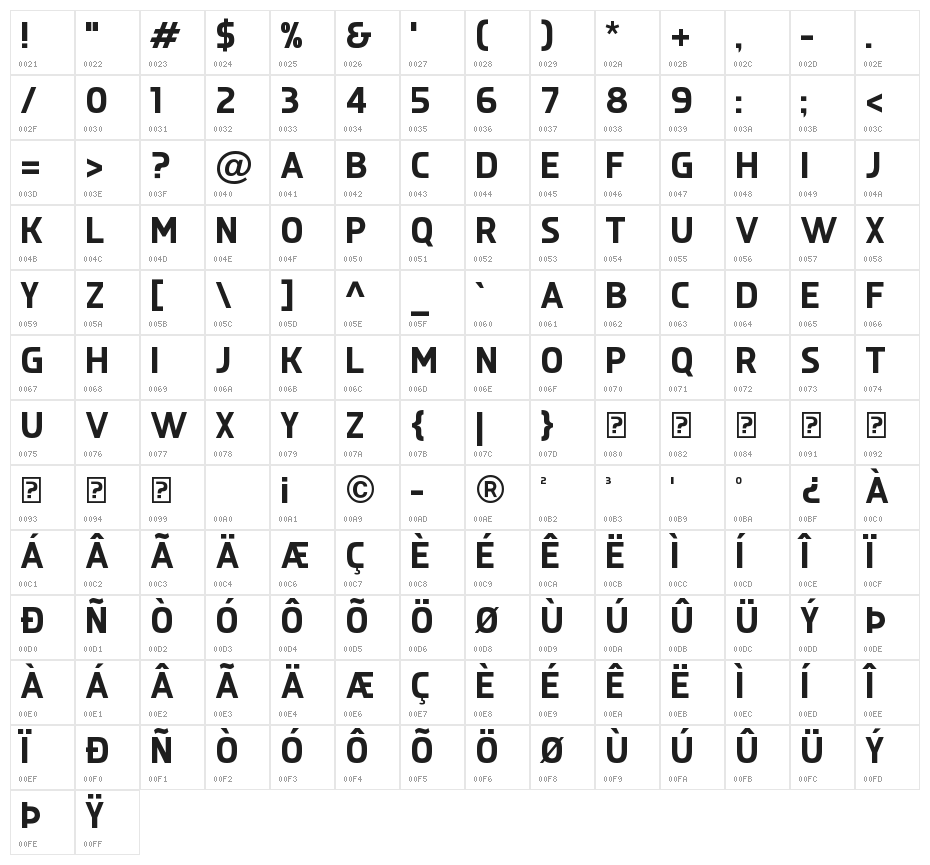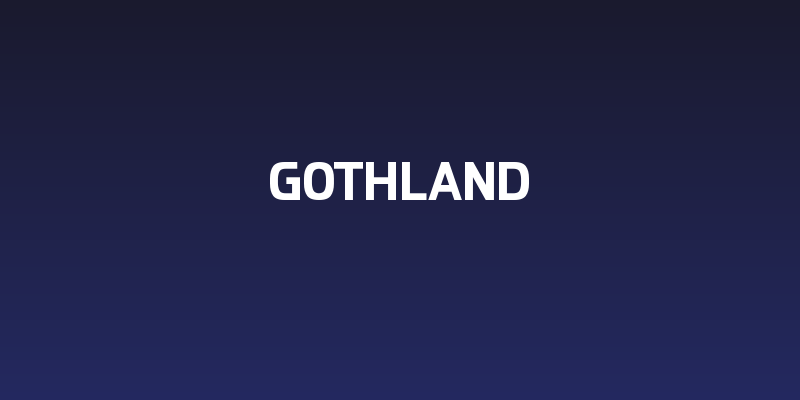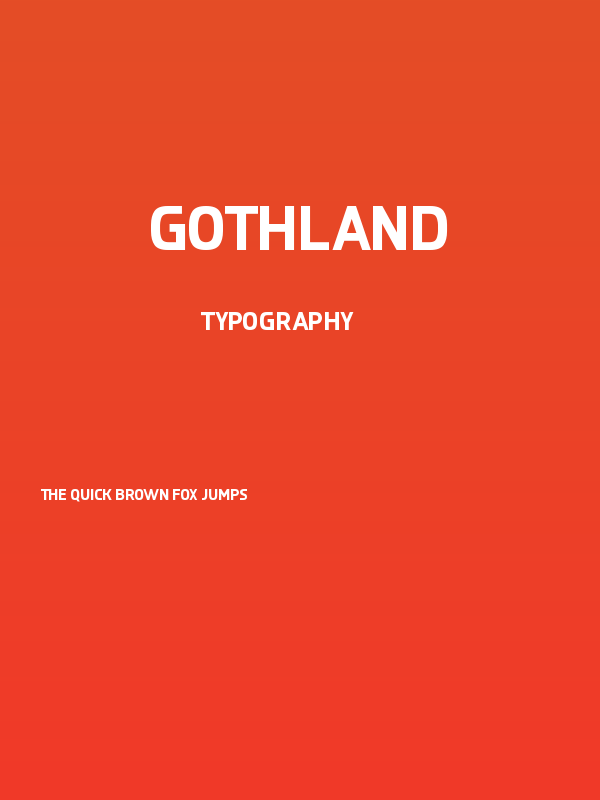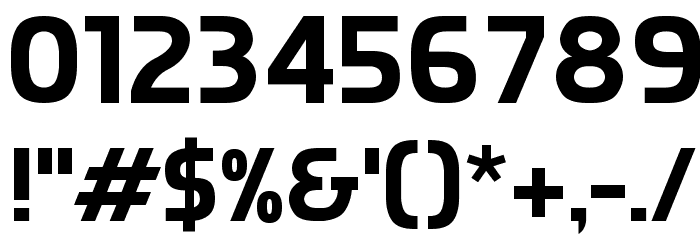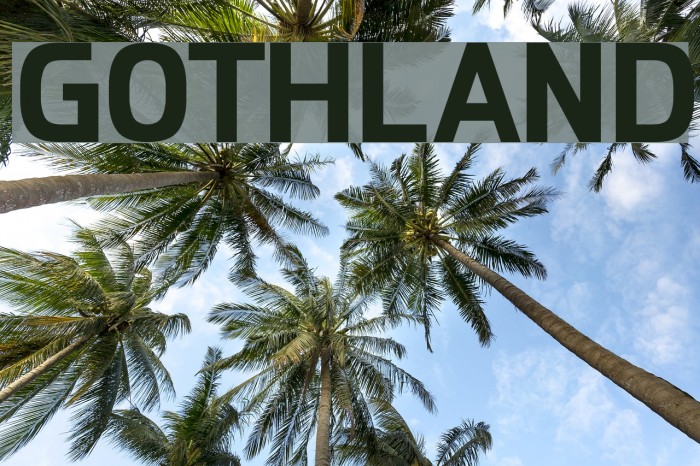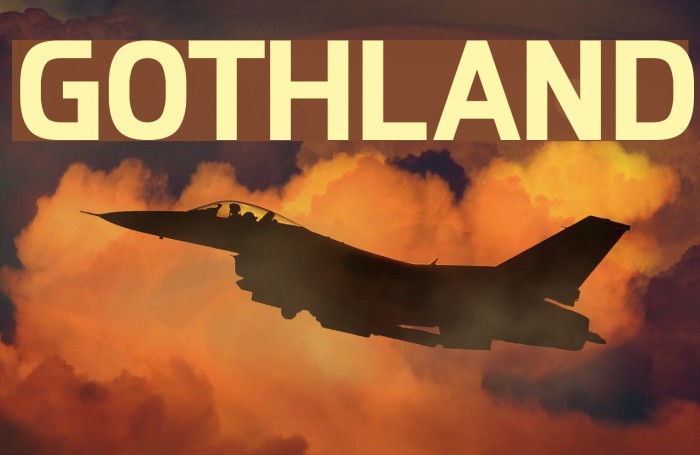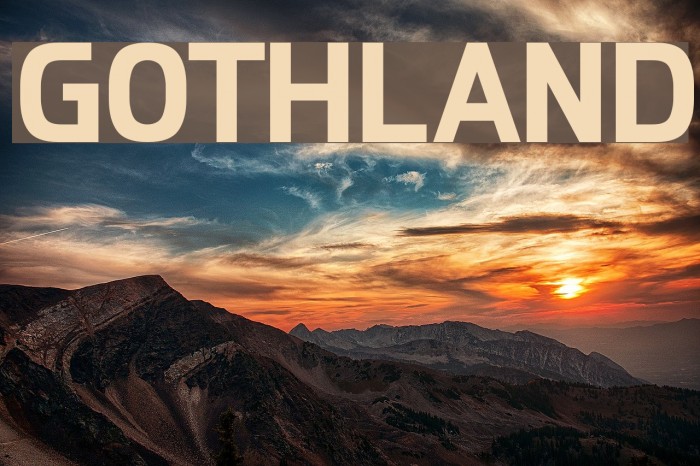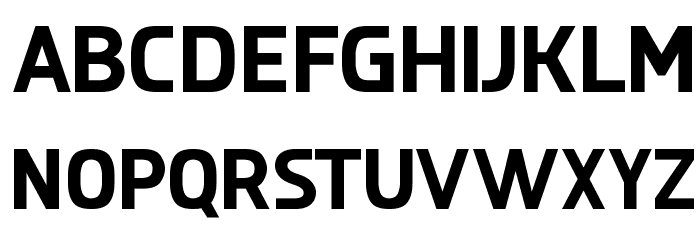
Gothland Font
Gothland Description
This font features a bold and modern design with clean, geometric lines. The characters are well-defined with a uniform stroke width, giving it a strong and assertive appearance. The uppercase letters are particularly striking, with a slightly condensed form that enhances readability while maintaining a compact look. The numerals are clear and consistent, making them suitable for various applications. Special characters are distinct and harmonize well with the overall style, ensuring versatility in design projects. This font's contemporary aesthetic makes it ideal for modern branding and digital interfaces.